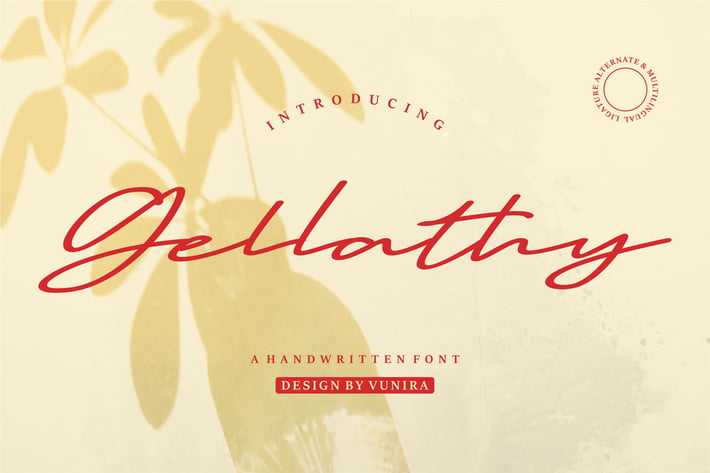
Gellathy | Handwritten Font
Gellathy | Handwritten Font with a calligraphy style, So beautiful on invitation like greeting cards, branding materials, business cards, quotes, posters, and more!